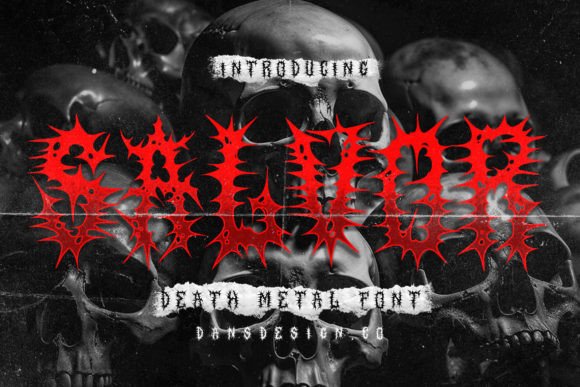
Unleash your dark artistic side with Salvor Font, the ultimate blackletter font that screams both boldness and elegance! Immerse yourself in a world of intricate details, sharp edges, and captivating glyphs that will turn your designs into spine-chilling masterpieces.
Salvor Font isn't just a font; it's a gateway to unleashing your creativity's darkest and most enchanting corners. Perfect for music projects, posters, retro-urban designs, tattoo business branding, and vintage designs, Salvor Font is your ticket to captivating every viewer's senses.
Picture this: your music album cover adorned with the hauntingly beautiful Salvor Font, commanding attention with its undeniable charm. Or, envision your posters oozing with an eerie elegance that tells a story of mystery and intrigue. With Salvor Font as your weapon, you'll create designs that linger in the minds of your audience long after they've seen them.
And let's not forget the world of tattoos. Salvor Font is the perfect tool to inscribe meaningful words or striking symbols onto the skin, leaving an everlasting impression. Its distinctive style will make your tattoo designs stand out from the crowd, becoming a true conversation starter.
With Salvor Font by your side, you'll unlock endless possibilities to showcase your unique artistic vision. Don't let this extraordinary font pass you by. Embrace the darkness, embrace the beauty, and let Salvor Font guide you to design greatness!